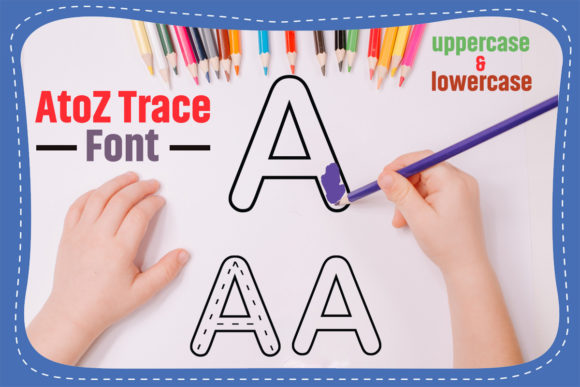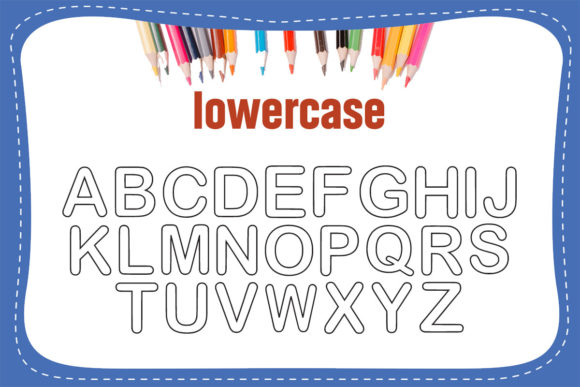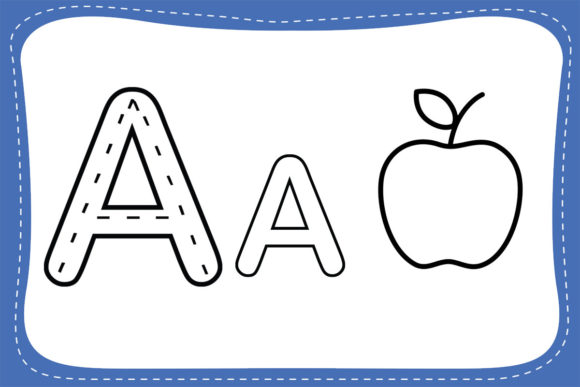
AtoZ Trace for Kids Font
AtoZ is a display font that will make your design look modern, unique, and fun. Perfect for playful kids who want to practice handwriting. This font is perfect for children and kindergarten purposes. AtoZ font has a unique Writing practice style.